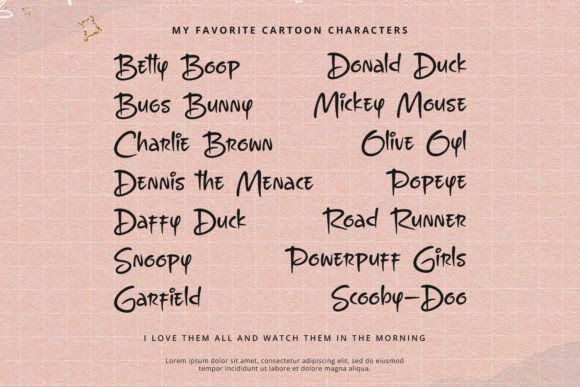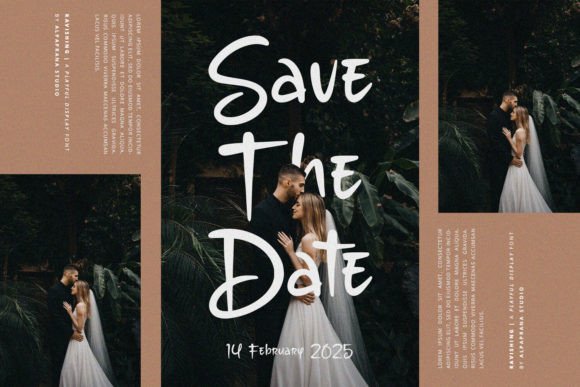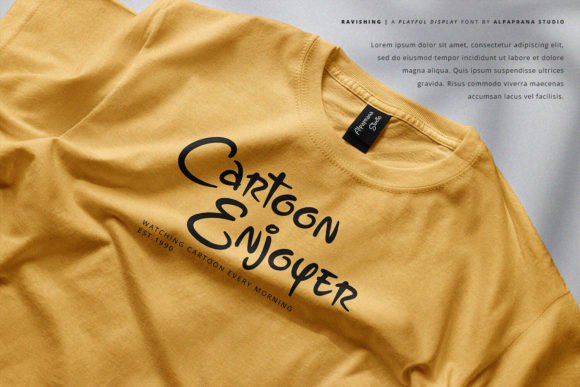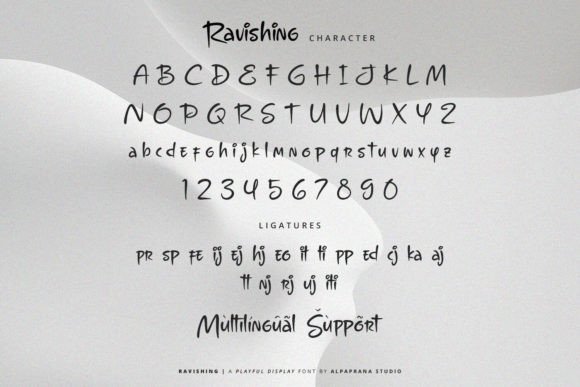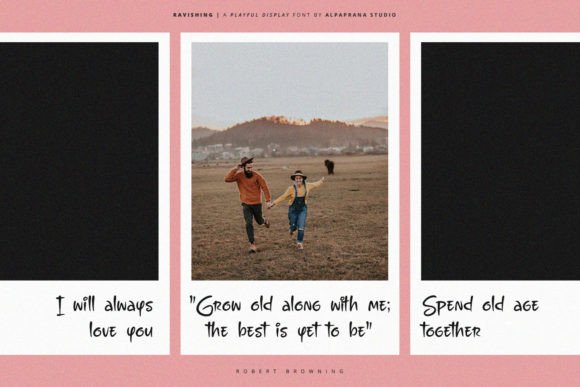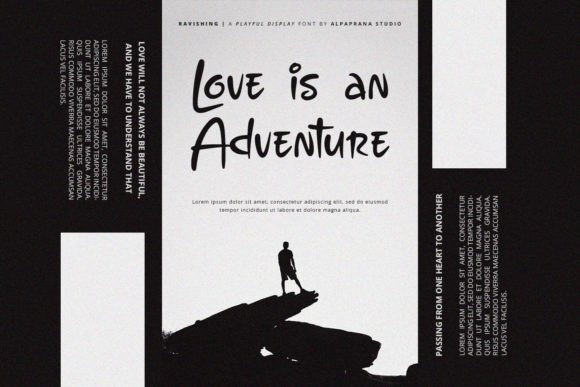
Introduction to Ravishing Font
Have you ever found yourself in a quiet coffee shop, surrounded by the soft hum of conversations and the gentle clinking of coffee cups, and suddenly, a spark of creativity strikes? The words start flowing, and you envision a stunning design project that would leave everyone breathless. For designers, those moments are priceless, and the right font can make all the difference. This is where the Ravishing Font comes in – a display font that exudes romance and modernity, perfect for bringing your creative projects to life.
As a valuable design resource, Ravishing Font is ideal for a wide range of applications, from magazine layouts to packaging designs, posters, and even book covers. With its high-quality features and transparent background, you can unleash your creativity without any limitations. Whether you’re working on a free download project or a paid design assignment, this font is sure to impress.
Key Features of Ravishing Font
- High-quality design: Ravishing Font is a premium font designed for creative projects, offering a unique and stylish look.
- Unique characteristics: Ravishing Font features a distinctive, elegant design that is perfect for adding a touch of sophistication to any creative project.
Honest Review: Ravishing Font
As a designer, I’ve come across my fair share of fonts, but the Ravishing Font really caught my eye. I downloaded it for free and was excited to see how it would perform in my next creative project.
- ✨ The high quality of the font is evident, with crisp and clear letterforms.
- ✨ The transparent background makes it easy to use on any design surface.
- ✨ The font is highly versatile and can be used in a variety of design contexts, from headings to body text.
- ⚠️ The font doesn’t include many ligatures, which can make text-setting a bit more tedious.
- ⚠️ Some users may find the font a bit too ornate, which can make it difficult to read in certain situations.
Overall, I’m impressed with the Ravishing Font. It’s a solid addition to any designer’s toolkit and can add a touch of elegance to any design project. If you’re looking for a high-quality, free download to spice up your next creative project, I’d definitely recommend giving it a try.
The Ravishing Font is a high-quality, free download design resource perfect for any creative project. Its transparent background makes it versatile and easy to use in various applications.
For the best results, use the Ravishing Font in conjunction with other high-quality design resources. Experiment with different font sizes and styles to create visually appealing designs.
The Ravishing Font is perfect for:
- Creatives who need a unique, high-quality font for their projects.
- Designers who require a transparent background font for versatility.
- Entrepreneurs who want to add a touch of elegance to their branding materials.